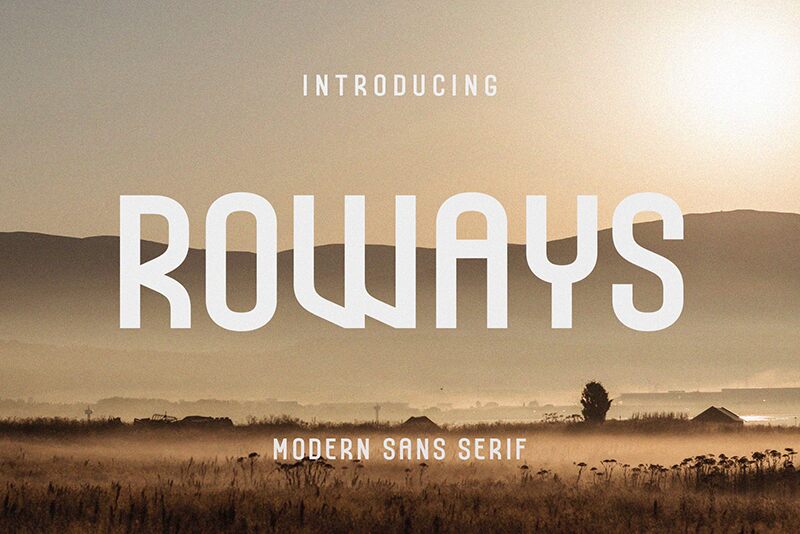
Roways
Roways, a creation by BrandSemut, stands out with its semi-light weight and condensed width that convey an air of modern sophistication. The sans serif style of Roways lends it a clean and uncluttered aesthetic, making it highly legible and versatile for various design applications. Its sleek lines and subtle curves suggest a blend of contemporary chic with functional clarity.
Ideal for branding projects, editorial work, or any creative endeavor that requires a touch of elegance without sacrificing readability, Roways is adept at crafting a distinct visual identity. Its condensed form factor allows for impactful headlines and space-efficient text layouts in both print and digital media. Embrace the understated charm of Roways to give your designs a refined edge.